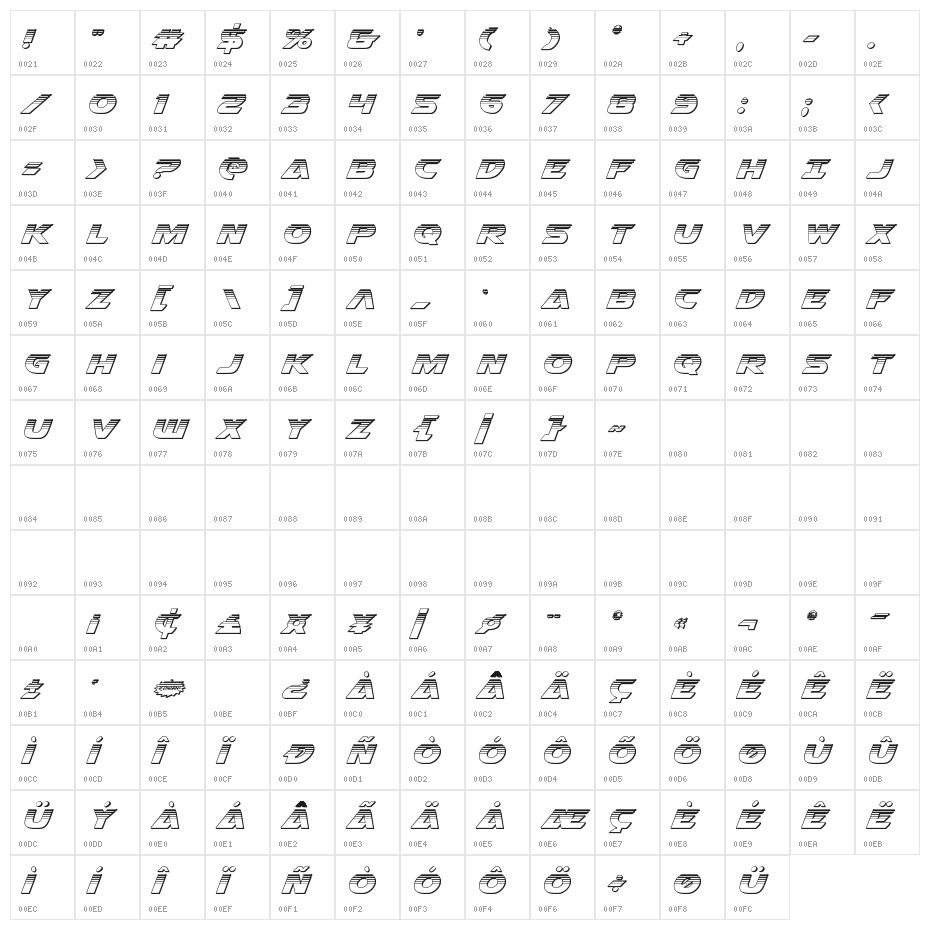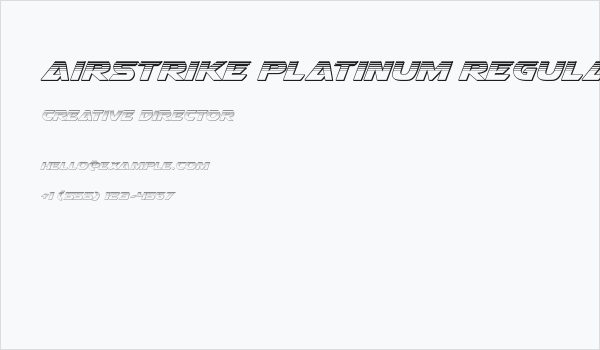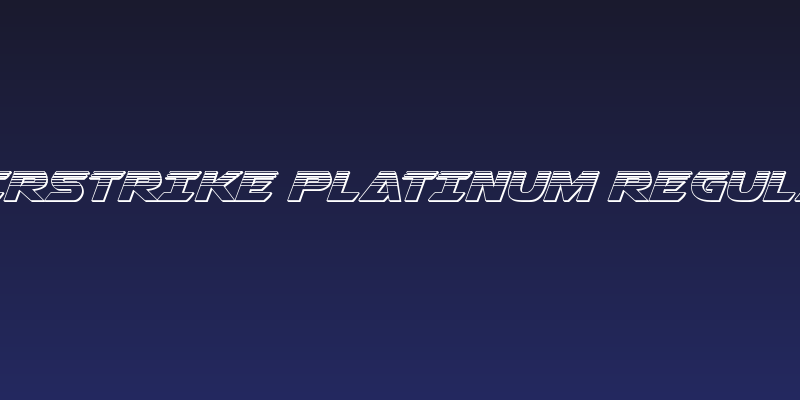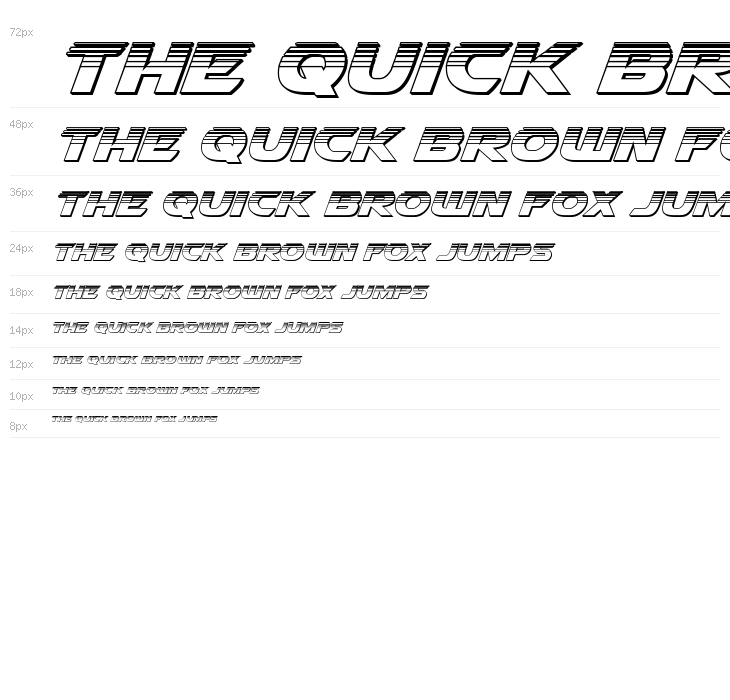
Airstrike Platinum Regular Font
Airstrike Platinum Regular Description
This font features a bold, futuristic design with a distinct three-dimensional effect created by parallel lines and shadowing. The uppercase letters are angular and geometric, giving a sense of motion and speed. The characters are wide and have a strong presence, making them ideal for attention-grabbing headlines. The numbers and special characters maintain the same dynamic style, ensuring consistency across all text elements. This font is perfect for projects that require a modern and edgy look, such as tech branding, video game titles, or sports team logos.
| Proposed Projects | Ideal for tech branding, video game titles, sports team logos, and futuristic designs. |